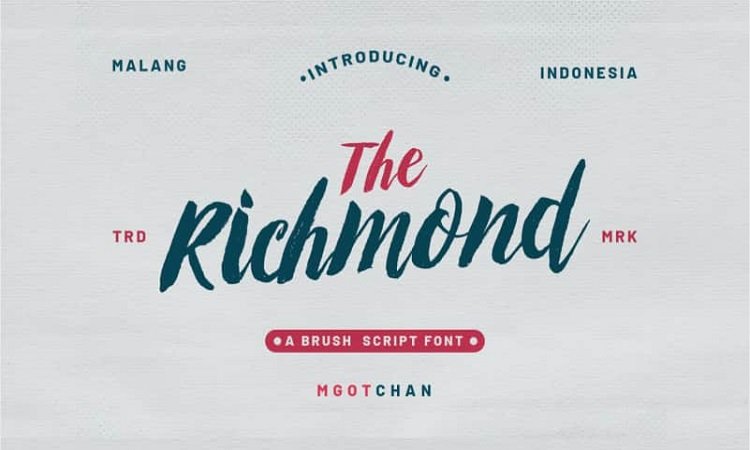
Richmond Brush Font Free
Richmond Brush Font is a handmade brush font, naturally handmade and with underscores. Made from font designer named MGOT CHAN. Brush Script Font with simple dancing base and bold. This font is great for branding, label design, logo type, quotes, posters, apparel and much more.
A few TIPS for better results, combine Sofie Script with the serif/sans serif font formal style may be thick or thinner, do not use regular. It’s perfect for use in title designs such as clothing, invitations, title books, stationery designs, quotes, branding, logos, greeting cards, t-shirts, packaging designs, posters, and more.